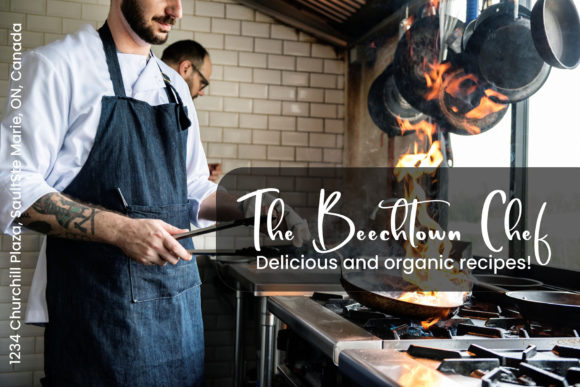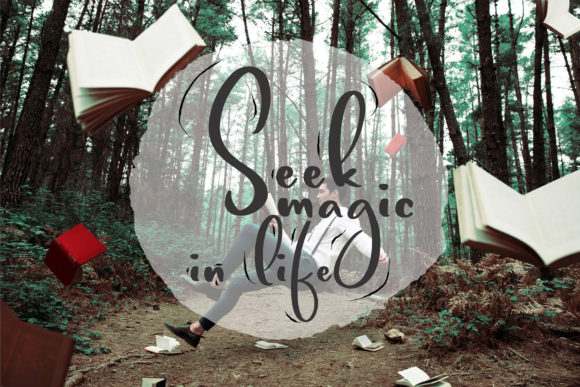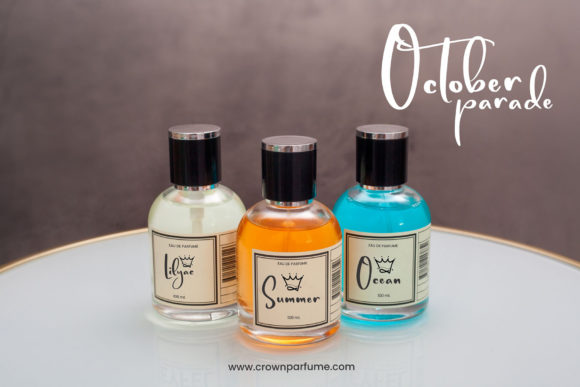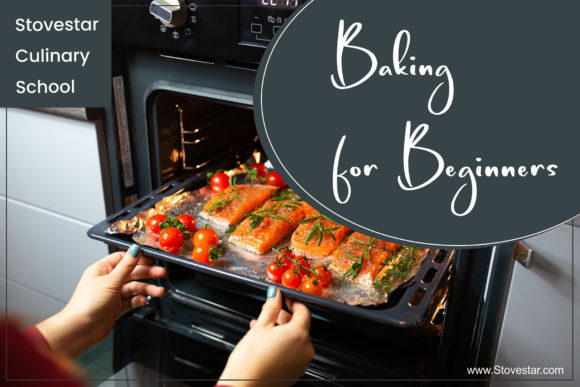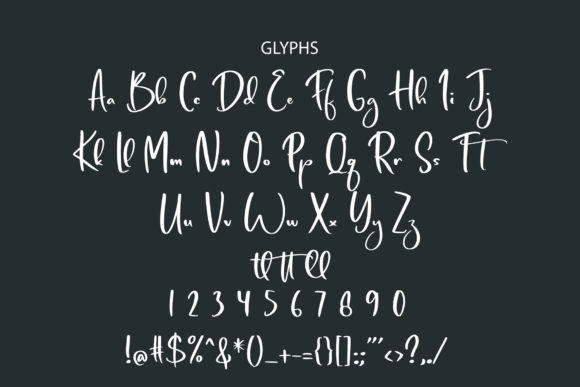
The Bithera Font: A Modern Handwritten Gem
I’ll never forget the design project that led me to discover the Bithera font. I was working on a branding project for a trendy boutique, and I needed a font that would capture the essence of their modern, artistic vibe. After hours of scouring font libraries and testing various options, I stumbled upon Bithera – a beautiful, handwritten font that instantly resonated with the client’s aesthetic. In this article, I’ll share my experience with Bithera, its features, and how to make the most of it in your designs.
An Honest Review of Bithera
What I Love About Bithera ✨
• 💫 Unique and modern handwritten style that’s perfect for creative projects
• 🎨 Versatile and adaptable to various design contexts, from branding to packaging
• 🌈 Beautifully crafted with a distinct character that adds personality to any text
• ⚠️ Some characters may appear a bit narrow or cramped at very small font sizes
• ⚠️ Limited availability of extended language support
The Backstory Behind Bithera
Bithera was designed by a talented type designer who aimed to create a modern, handwritten font that would capture the essence of contemporary art and design. With inspiration from various artistic movements and a passion for typography, Bithera was born – a unique and versatile font that’s perfect for creative projects.
What makes Bithera a great choice for creative projects? Bithera’s unique and modern handwritten style, combined with its high legibility and versatility, make it an excellent choice for creative projects.
Does Bithera support OpenType features? Yes, Bithera supports OpenType features, including ligatures, stylistic alternates, and swashes.
Is Bithera suitable for body text? While Bithera is primarily designed for display purposes, it’s also legible enough for use in body text, especially at larger font sizes.